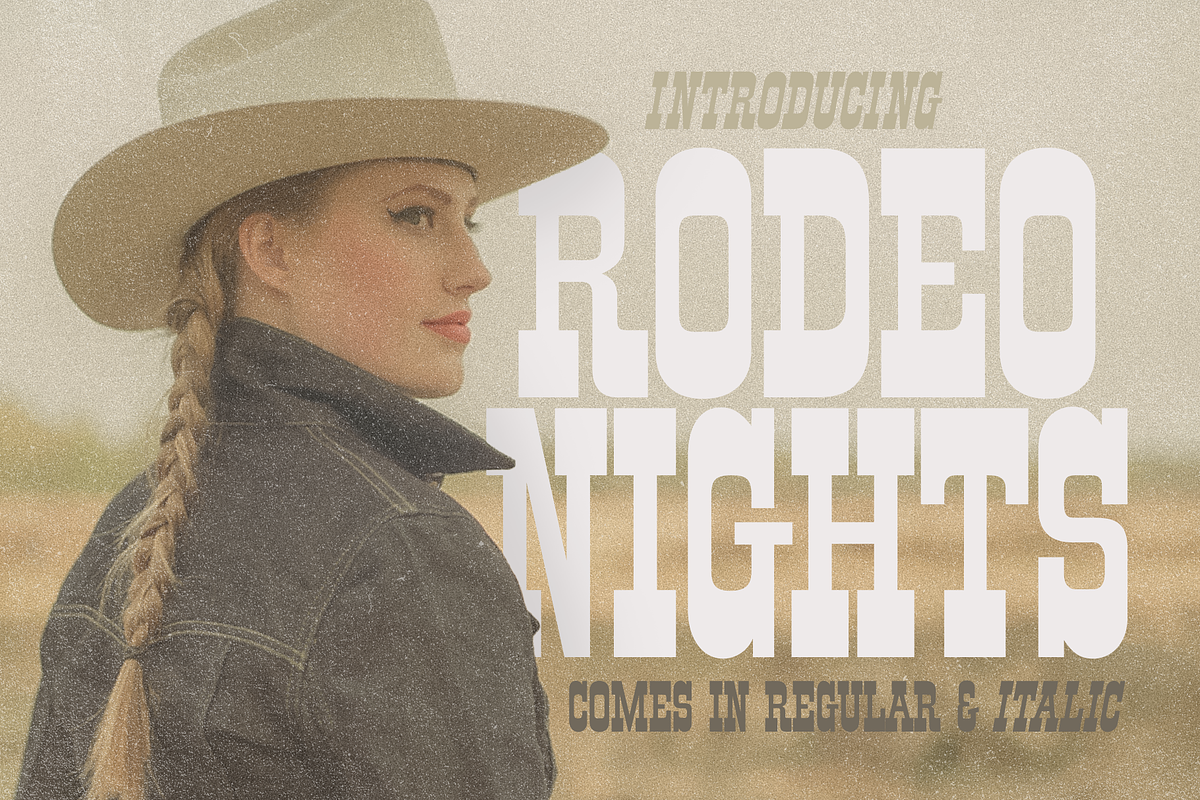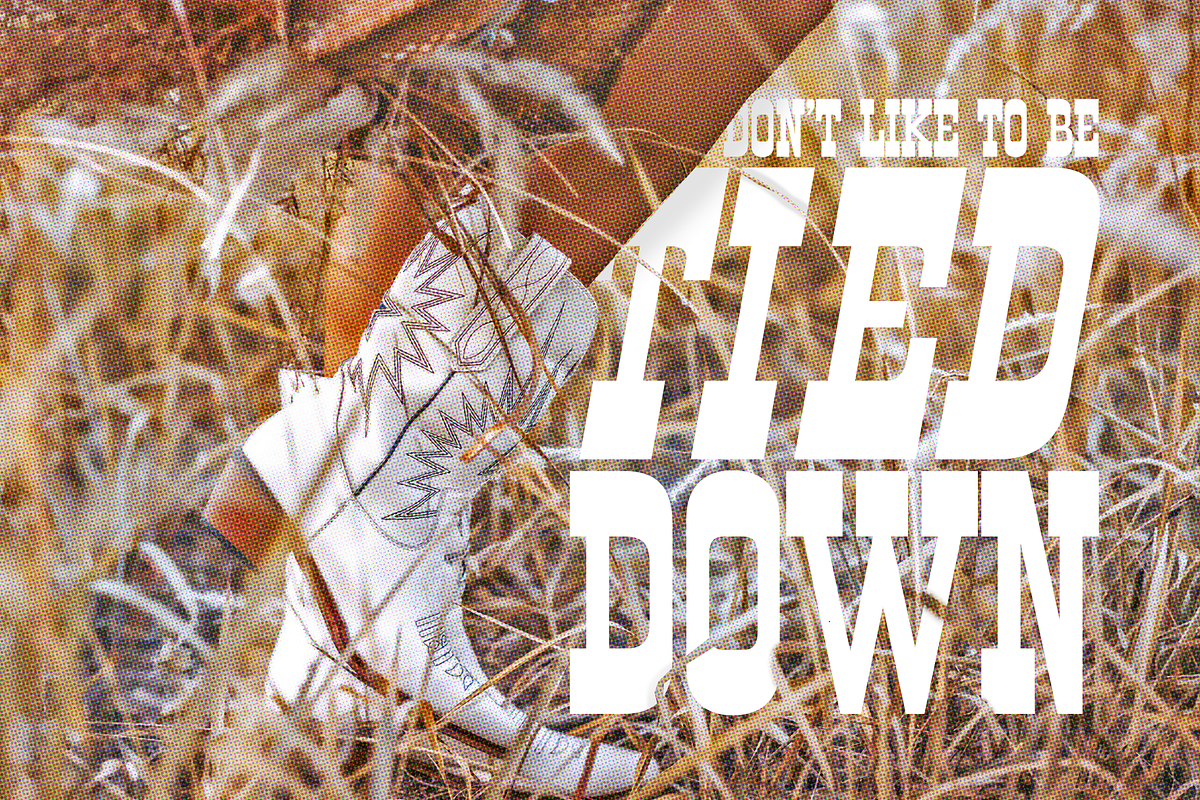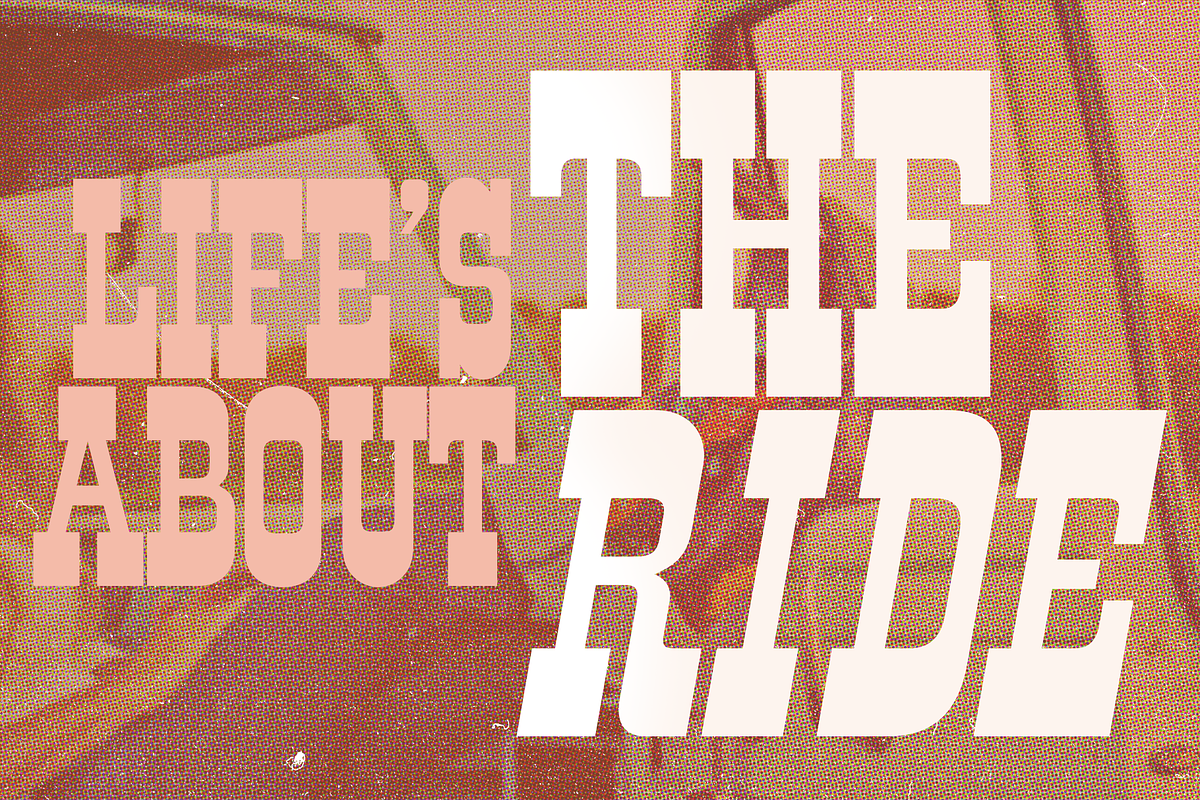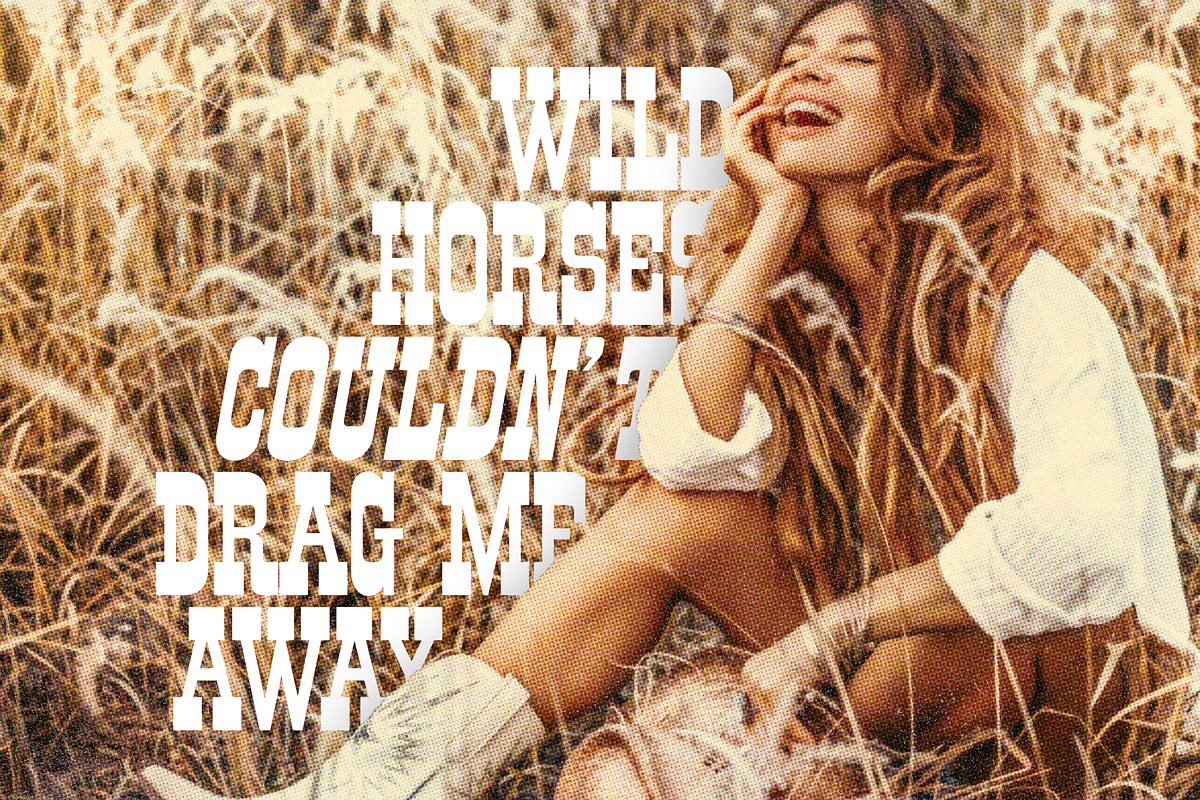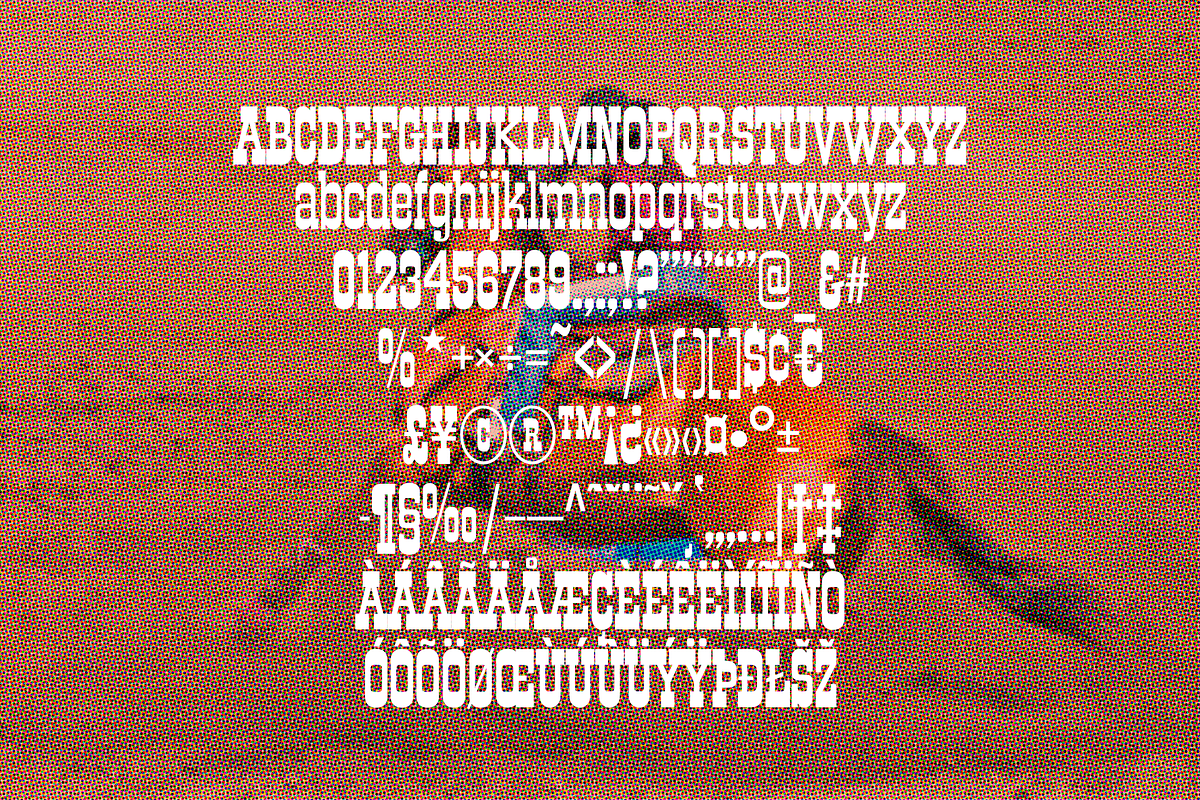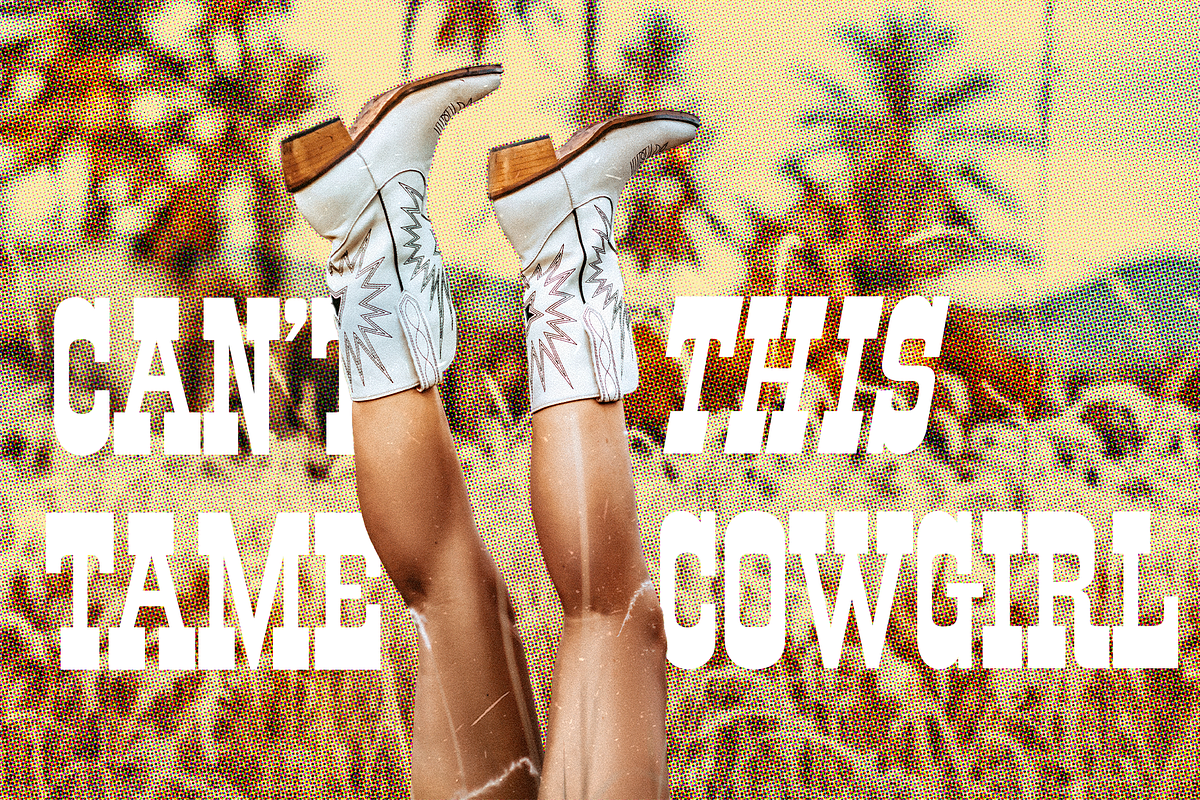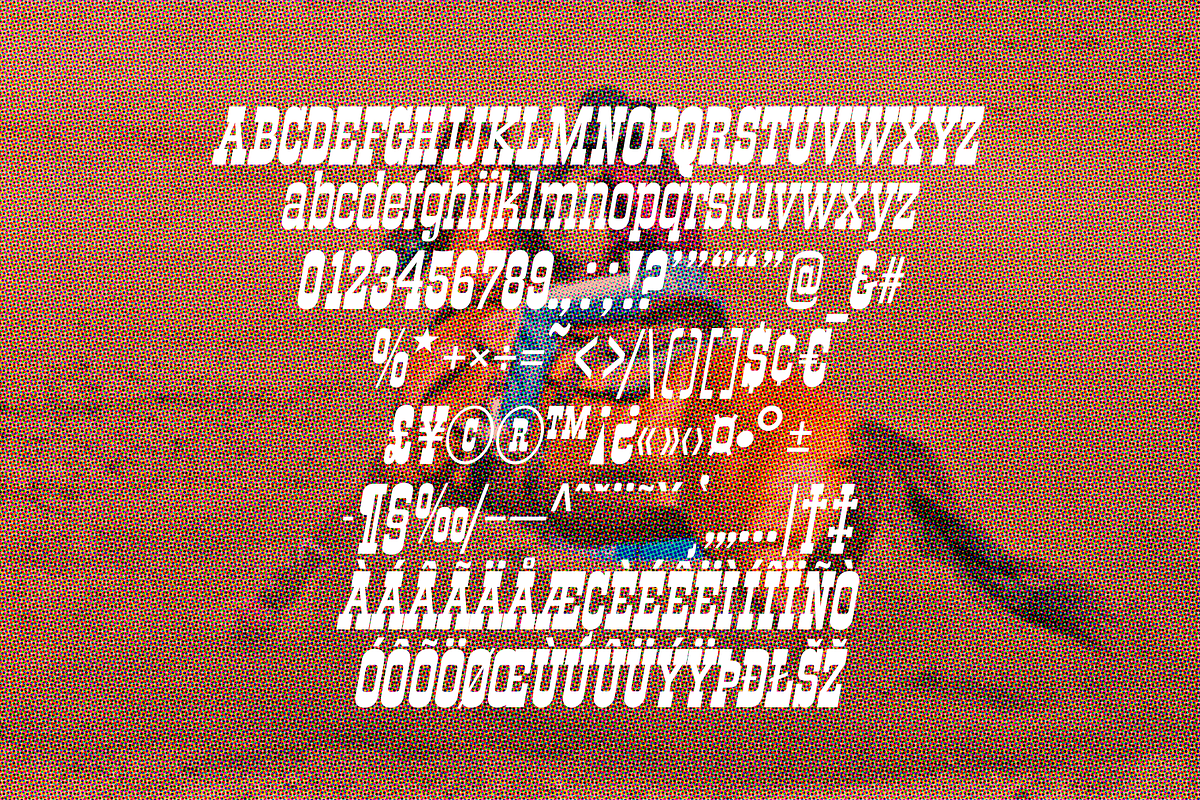
Rodeo Nights - Western Font
Introducing, Rodeo Nights - A Slab Serif Western style typeface.
This item consist of 2 fonts styles - regular and italic, suitable for design needs with a touch of classic western.
Rodeo Nights comes in 2 versions: • Regular • Italic